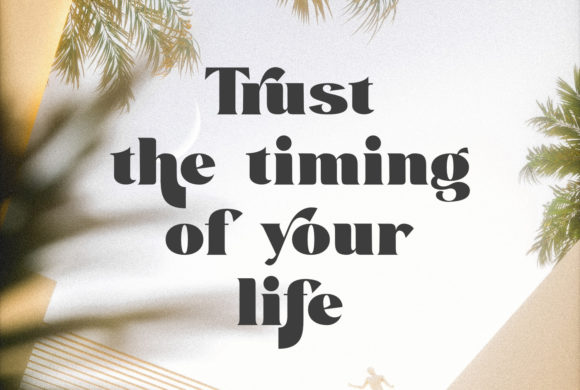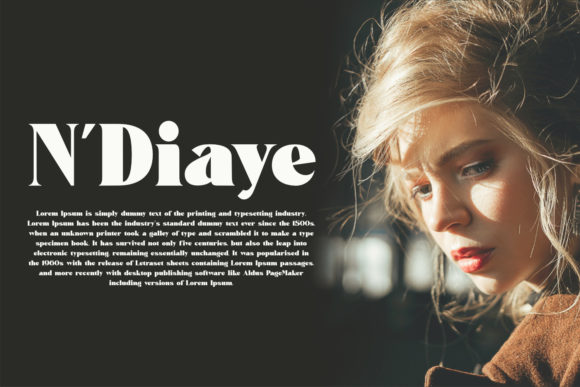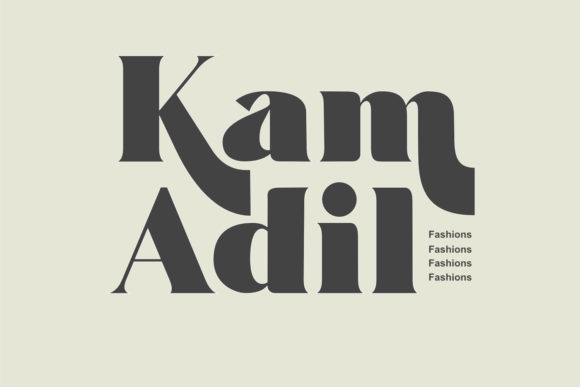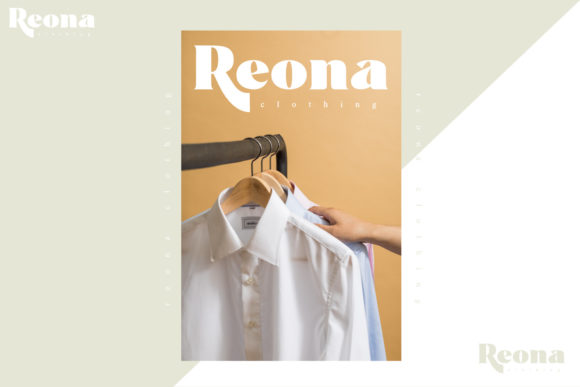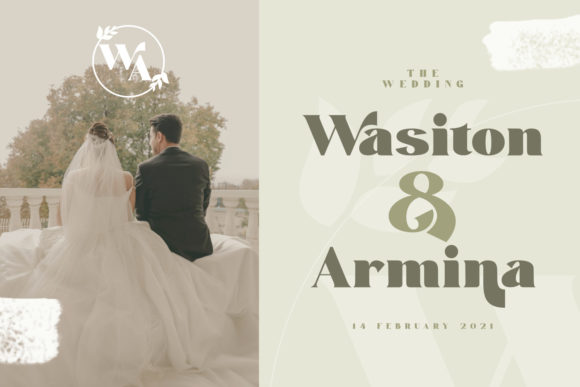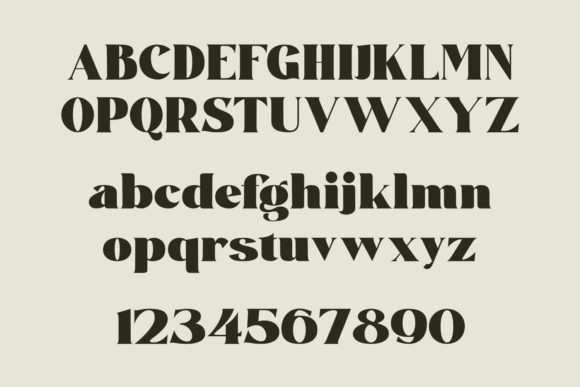
Introduction to Sadila Font
Sadila is a bold and thick lettered serif font.
This font is PUA encoded which means you can access all of the glyphs and swashes with ease Fall in love with its incredibly versatile style and use it to create spectacular designs.
Key Features of Sadila Font